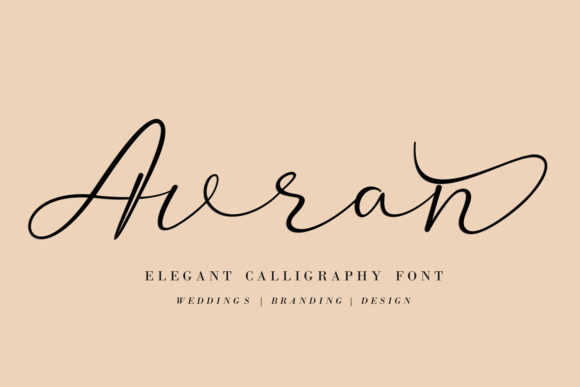
The Auran Font: A Charming Script to Elevate Your Designs
I’ll never forget the time I was working on a branding project for a whimsical children’s party planner. I had the logo concept nailed, but I was struggling to find the perfect font to complement it. That’s when I stumbled upon the Auran font, and it was love at first sight! ✨ The playful, dancing characters seemed to match the carefree spirit of the brand perfectly. In this article, I’ll share my experience with Auran, its features, and how to make the most of it in your designs.
An Honest Review of Auran Font
What I Love About Auran
• ✨ Charming, playful characters that add a touch of whimsy to any design
• 🌈 A wide range of stylistic alternates to experiment with
While Auran is an amazing font, there are a few things to keep in mind: 🤔
• ⚠️ Some characters may require manual kerning for optimal spacing
• ⚠️ Limited multilingual support, so it’s best suited for English or similar languages
The Story Behind Auran Font
Auran was designed with the intention of creating a font that would bring a sense of joy and playfulness to designs. The creator, a passionate typographer, drew inspiration from classic script fonts and infused them with a modern twist. The result is a font that’s both elegant and whimsical, perfect for a wide range of design projects.
Q: What is PUA encoding, and how does it benefit Auran font users?
PUA (Private Use Area) encoding allows font creators to include additional glyphs and characters that aren’t part of the standard Unicode range. For Auran font users, this means easy access to swashes, stylistic alternates, and other unique characters.
Q: Is Auran font suitable for body text or long-form content?
While Auran is a beautiful font, it’s best suited for headlines, titles, and short-form content. For body text or long-form content, a more readable font may be a better choice.